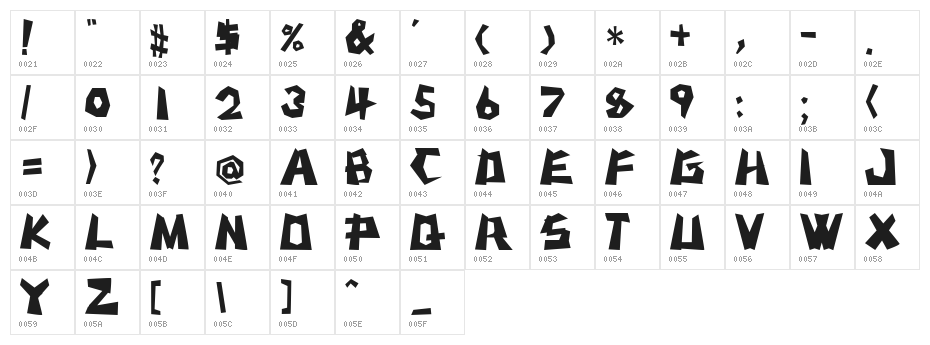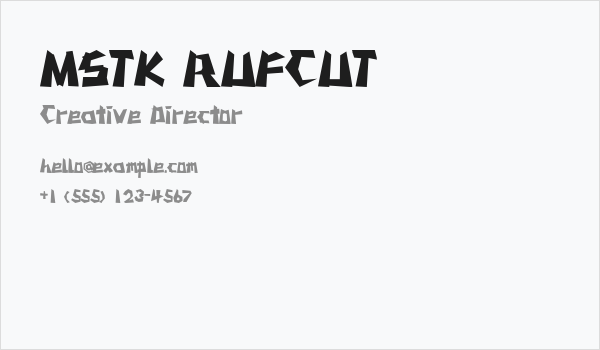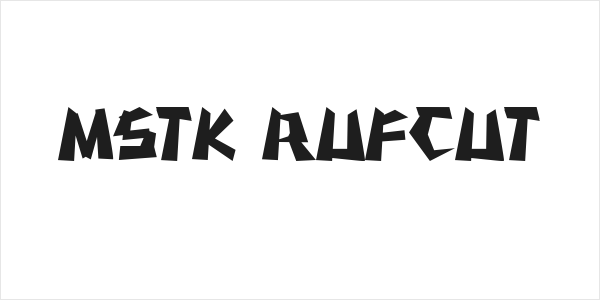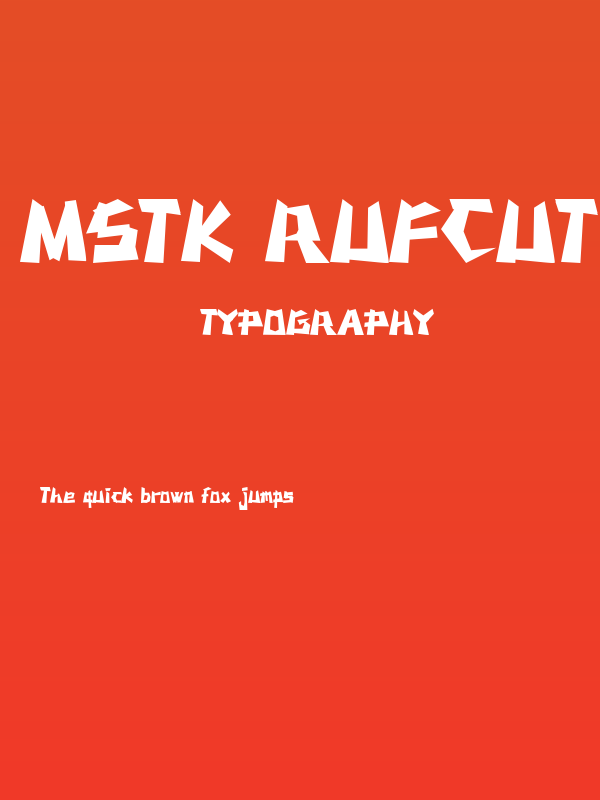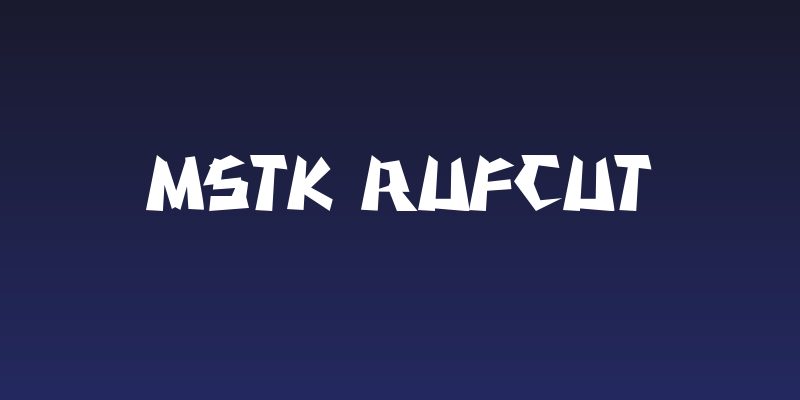
MSTK RUFCUT Font
MSTK RUFCUT Description
This font features a bold, angular design with a distinctly jagged and geometric appearance. Each character is crafted with sharp edges and irregular shapes, giving it a dynamic and edgy feel. The uppercase and lowercase letters maintain a consistent style, with exaggerated angles and a slightly chaotic structure. Numbers and special characters follow the same design principles, ensuring uniformity across all glyphs. The font's unique style makes it stand out, ideal for projects that require a strong visual impact. Its boldness and irregularity suggest a sense of rebellion and non-conformity, making it suitable for creative and unconventional applications.
Overall StyleModern, Edgy
Proposed ProjectsIdeal for album covers, posters, streetwear branding, and edgy graphic designs.